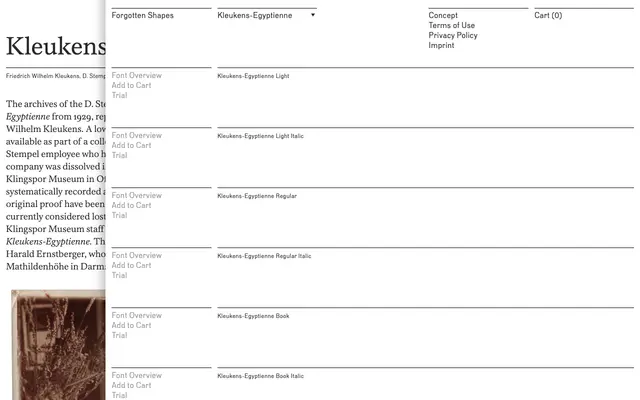
Kleukens-Egyptienne
Forgotten Shapes · Friedrich Wilhelm Kleukens (original), Reymund Schröder (revival) · 2018
A revival of an unpublished 1929 slab serif by Friedrich Wilhelm Kleukens, reconstructed by Reymund Schröder from a low-resolution trial proof and three surviving sketch sheets.
Originally designed for D. Stempel AG but never released, the Kleukens-Egyptienne sat unknown in archives until the trial proof was discovered and later considered lost. Schröder's 2018 revival draws on scarce surviving materials to reconstruct a design that departs from conventional Clarendon models by eliminating round bracketing and drop terminals in favour of crisper, more rectilinear forms. The result is five weights with matching italics, occupying an unusual position between book typography and geometric sobriety within the slab serif tradition.
A slab serif revival derived from the Clarendon genre, characterised by sturdy, low-contrast strokes and squared slab serifs without round bracketing, placing it firmly in the egyptienne tradition.